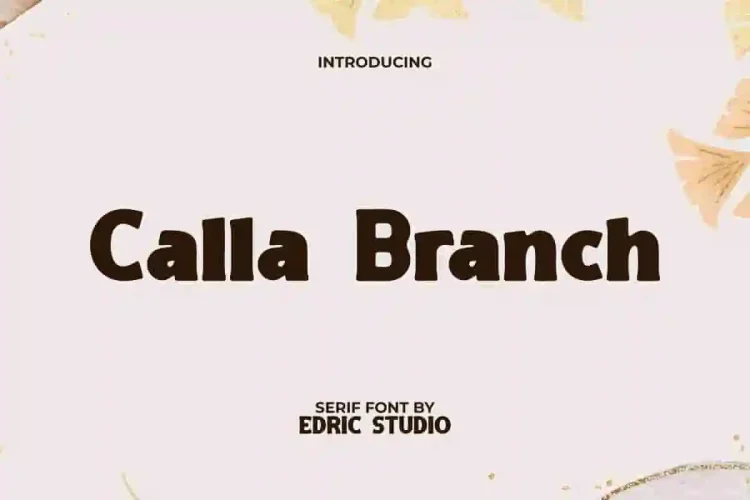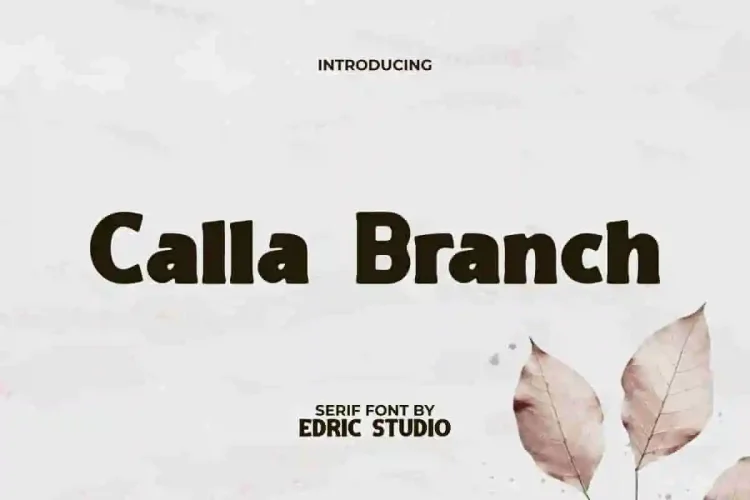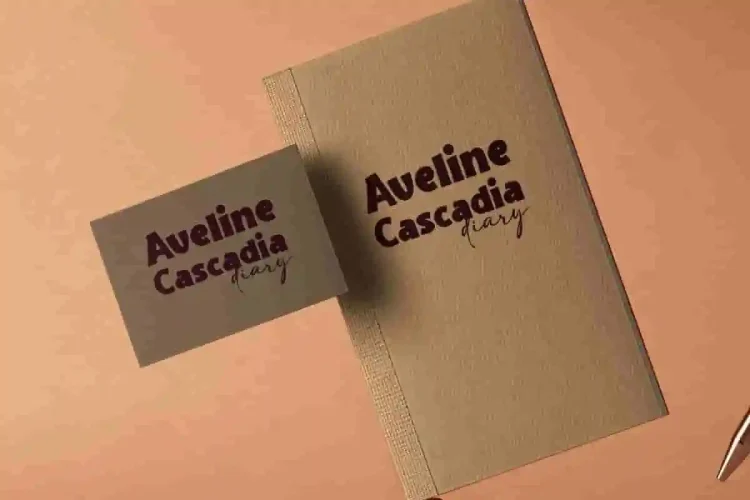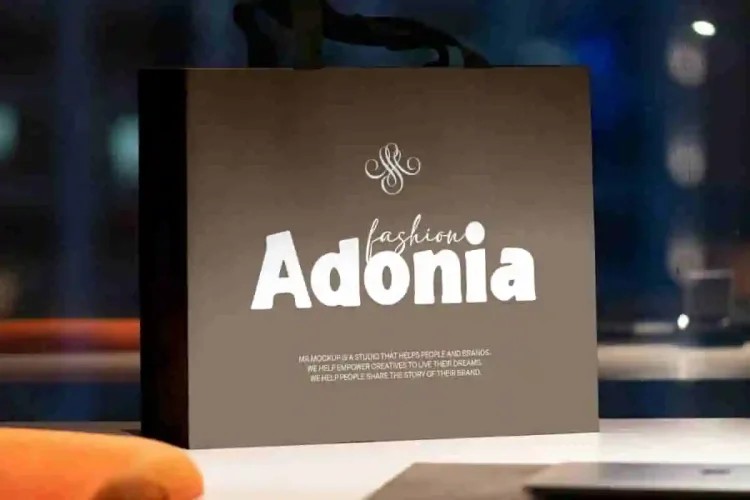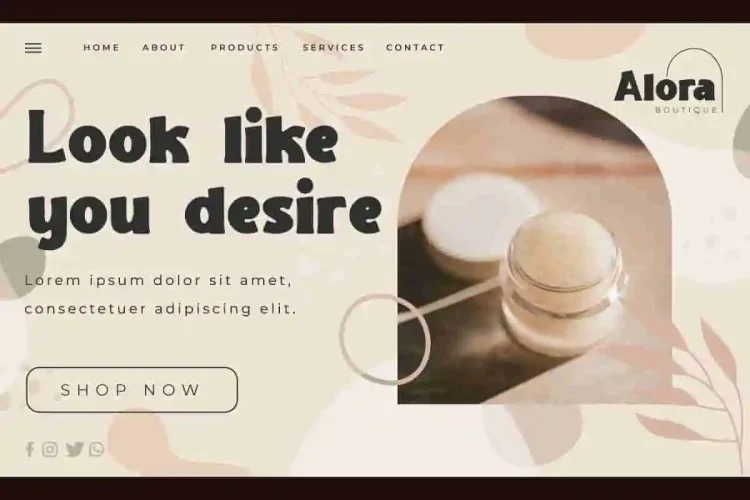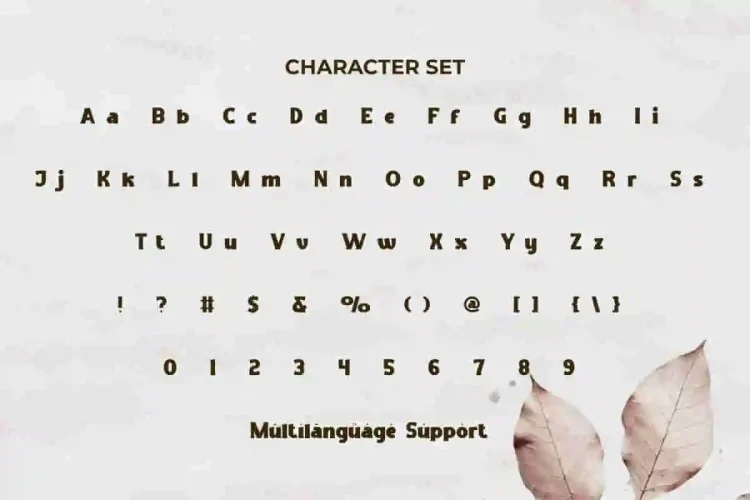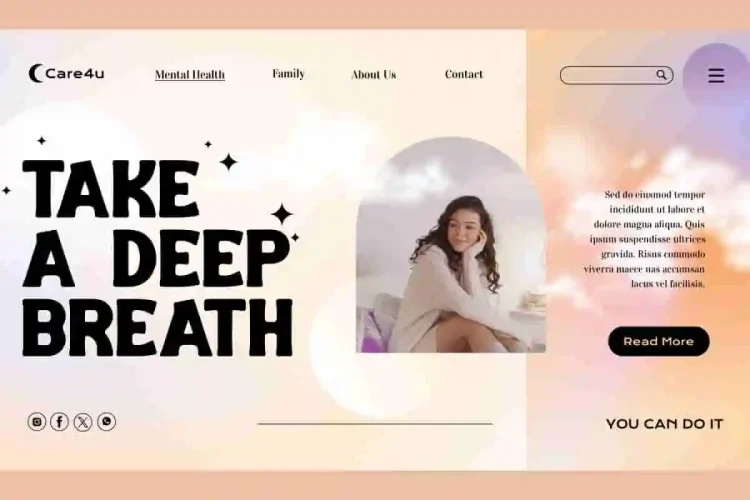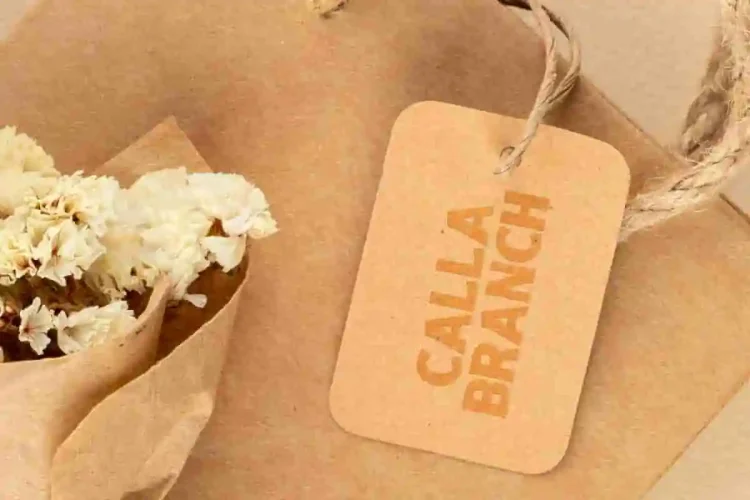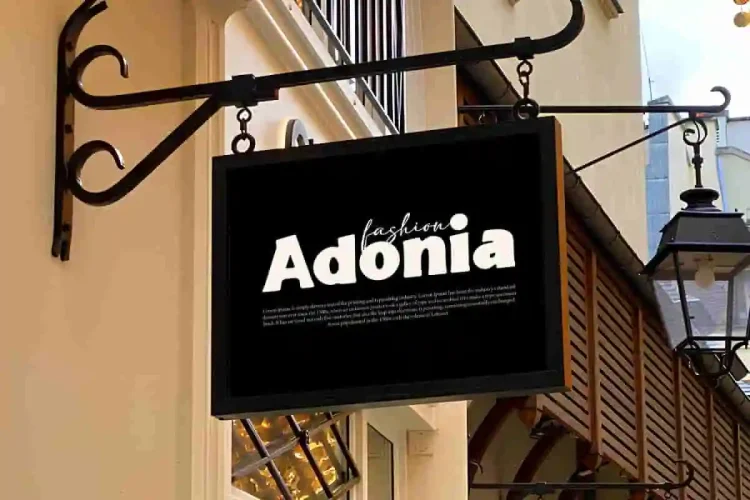
Calla Branch Font is a playful display font that delivers a bold style of a friendly sans-serif. It is perfect for purposes that want a retro feel or a contemporary look. The strong presence remains in good readability while maintaining a fun and stylish personality. Perfect for banners, blogs, brochure, headers, label tag, logos, mockup, packaging, paper bag, signage, stationery, template, title, websites, etc.
Calla Branch Font includes a complete set of Uppercase and Lowercase letters, Numbers, Punctuation, and Symbols. Designed for versatility with a soft and bold look. It will add a touch of personality to your designs. Perfect for accessories and gifts, apparel, authors, fashion, film, florist, graphic design, home furniture, publisher, restaurant, and much more.